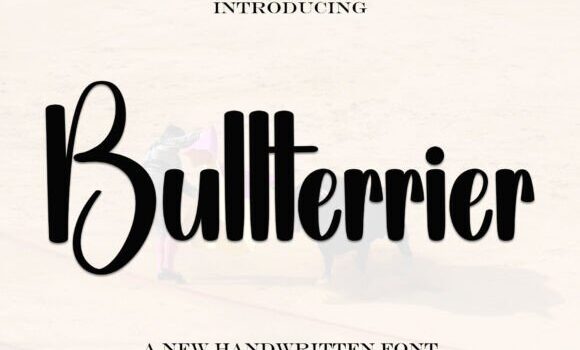
bullterrier
Bullterrier Font – Free Download Introduction to Bullterrier Font Bullterrier is a trendy handwritten font with a contemporary atmosphere and impeccable form, inspired by timeless classic calligraphy. 📸 Preview Gallery 5 images 📌 Product Name Bullterrier Font 👤 Author putrasyahreza00